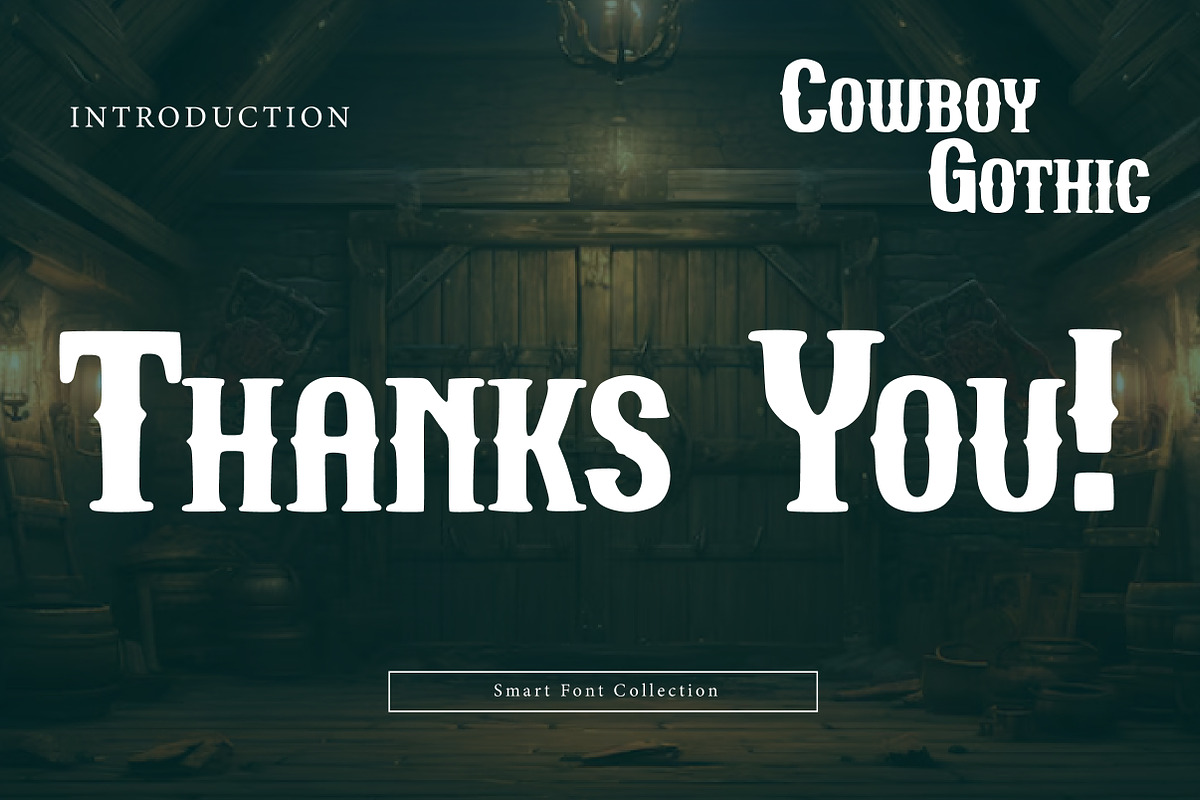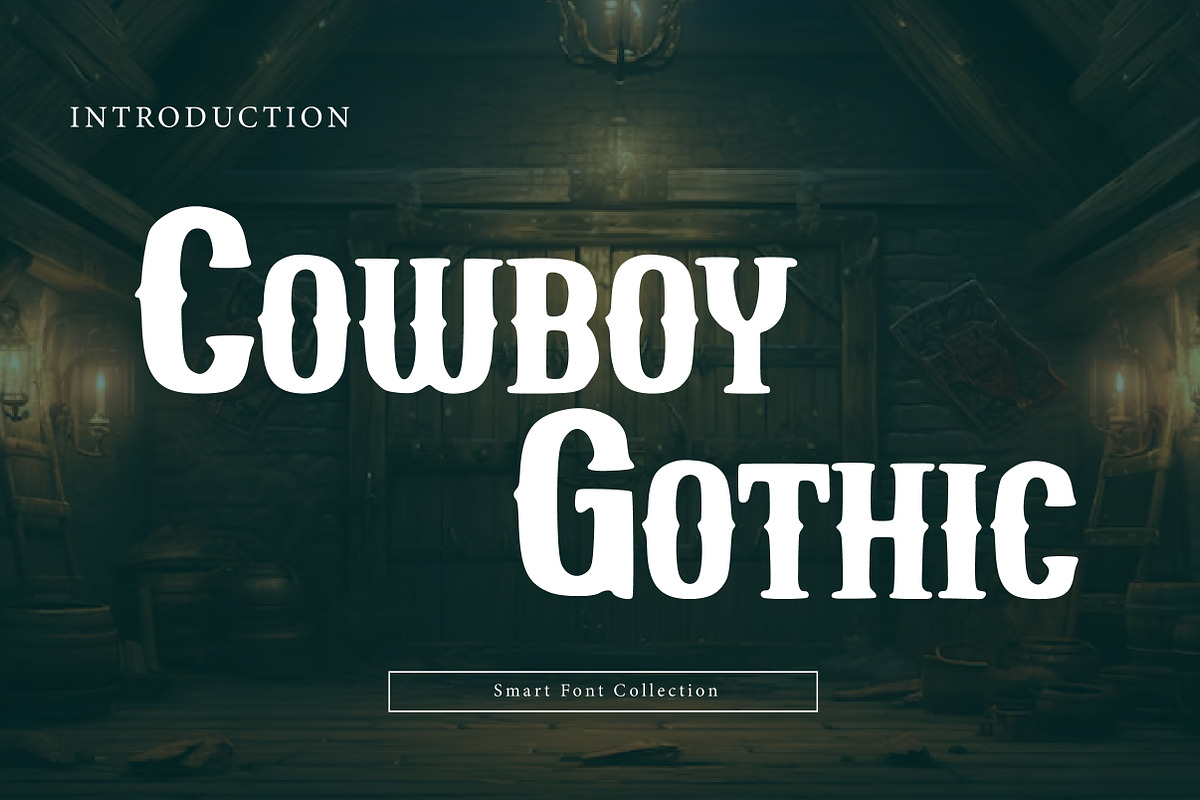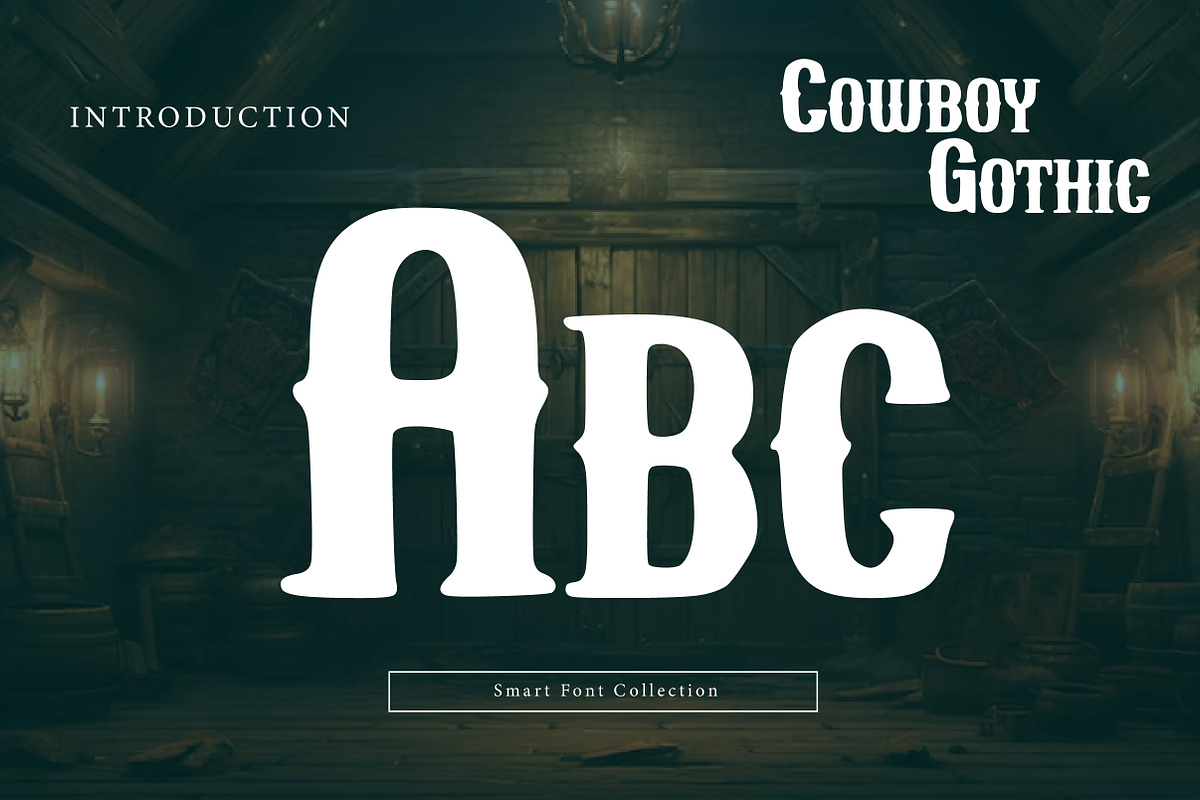
Cowboy Gothic
Cowboy Gothic is a bold western display font with a rugged vintage attitude and a hint of Gothic flair. Its tall, condensed letterforms and strong slab-like shapes create a classic frontier look that feels perfect for saloon signage, ranch branding, country posters, whiskey labels, badges, and Americana-inspired designs. Cowboy Gothic delivers powerful readability with authentic old-west character—ideal for projects that need a tough, timeless, and adventurous typographic voice.